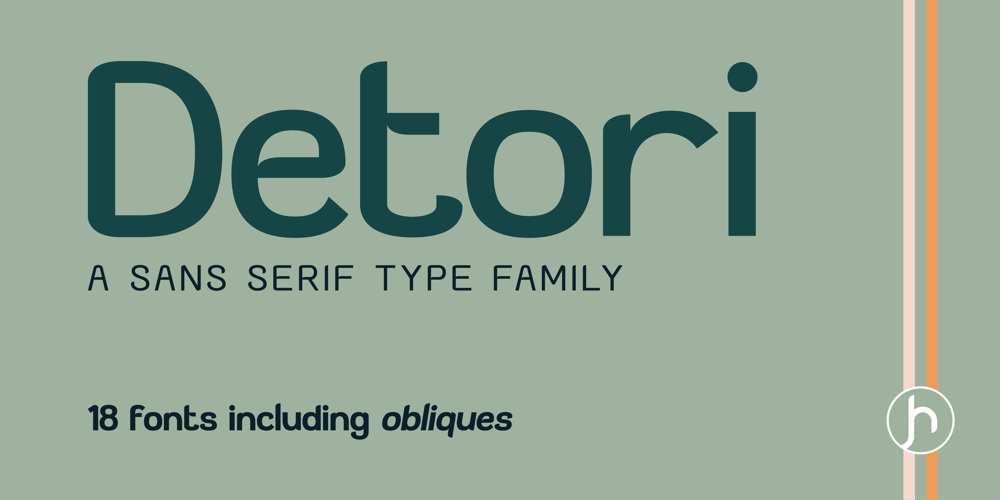
Detori Font Family was designed by Joe Hewitt and published by Joe Hewitt Design. Detori contains 18 styles and family package options. Detori makes its appearance offering you a clean and unpretentious typeface. It embraces a dreamy quality owing to its slightly wider apertures, creating a more informal look for your writing.Available in 9 weights (all with matching obliques), Detori has you covered for all uses, including modern-looking discrete thin and light weights to Bold and Black where extra emphasis is required.